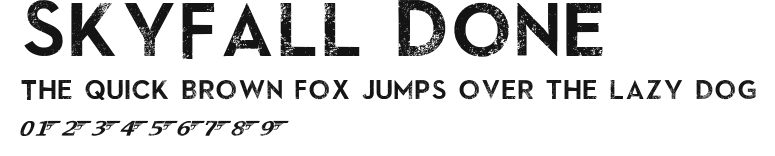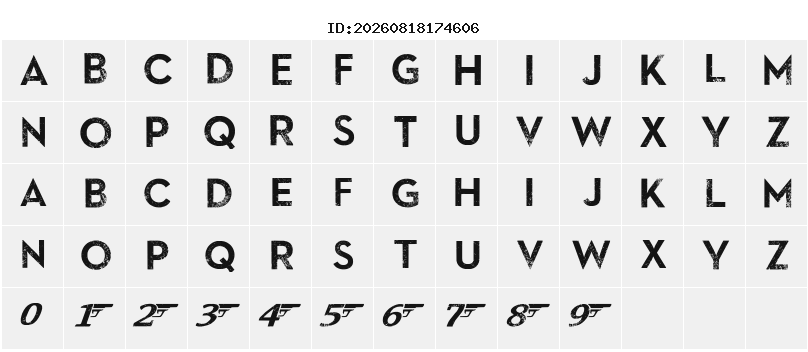
SkyFall Done Preview
• Font Name: SkyFall Done
• Full Font Name: SkyFall Done
• Designer: SpideRaY
About SkyFall Done.ttf
SkyFall Done.ttf is a modern, elegant sans-serif font designed for ultimate readability and visual harmony. Perfect for branding, headlines, web design, and print materials.